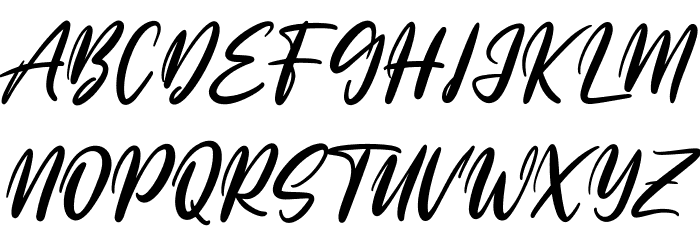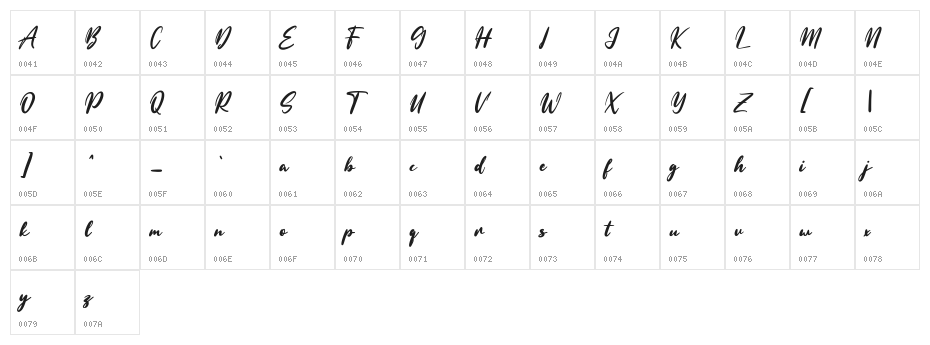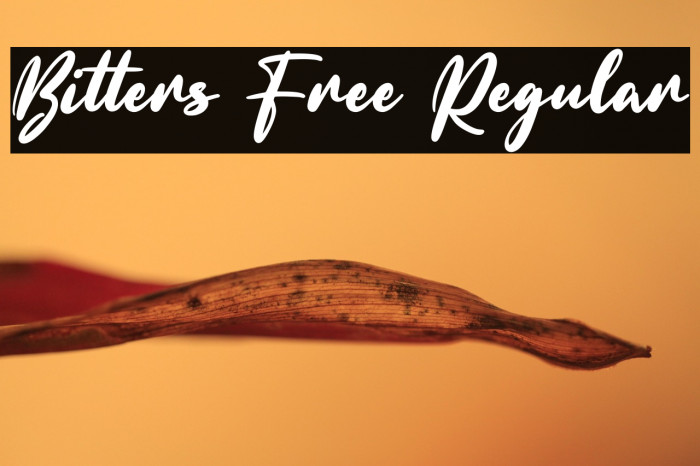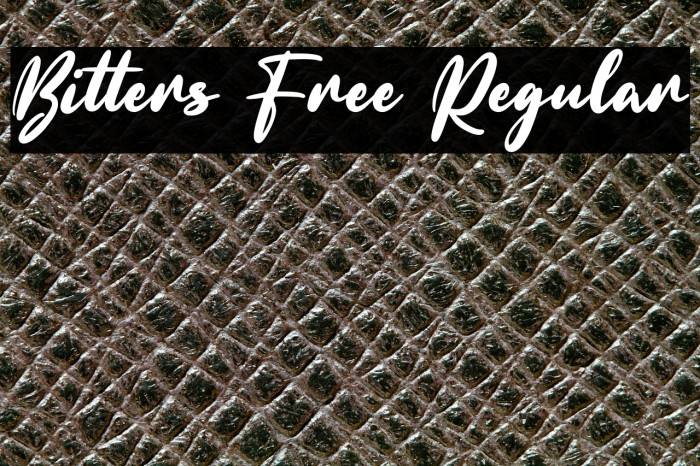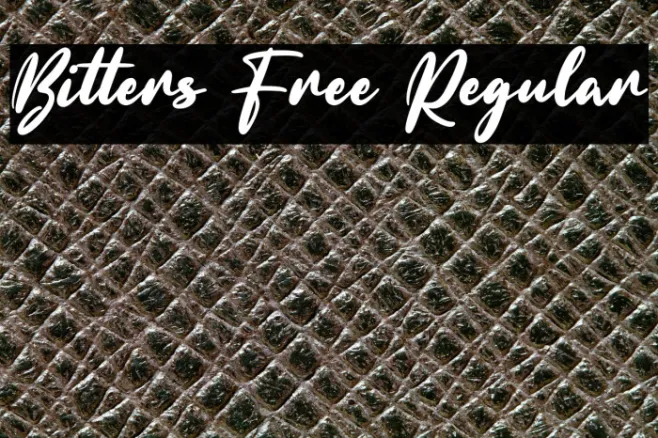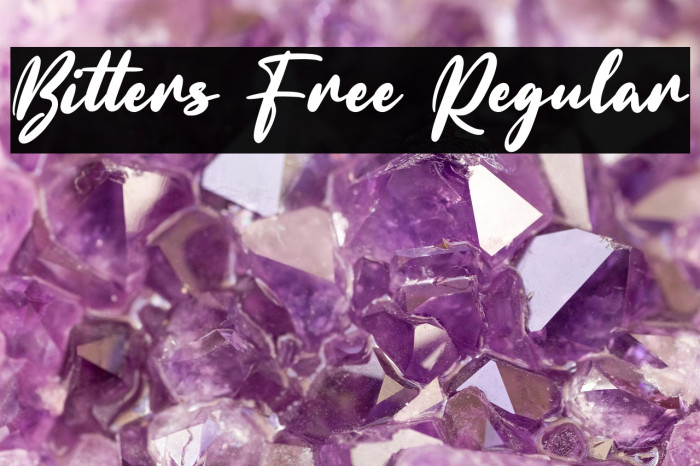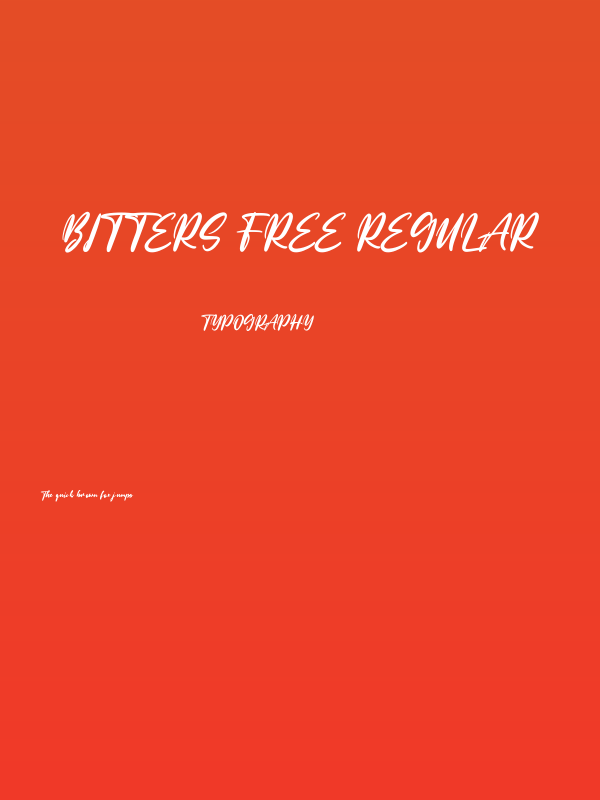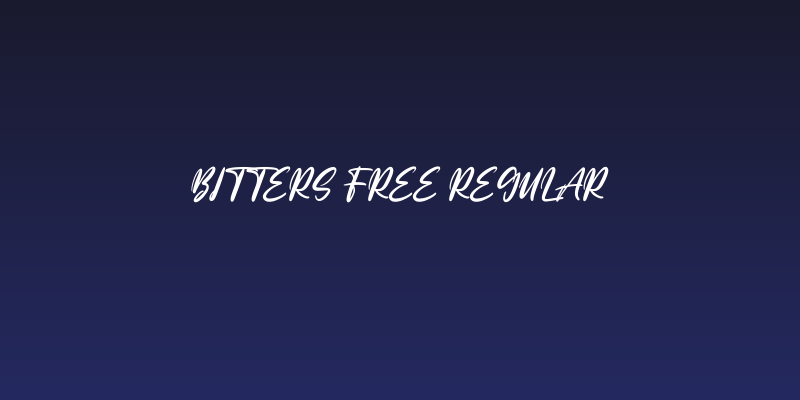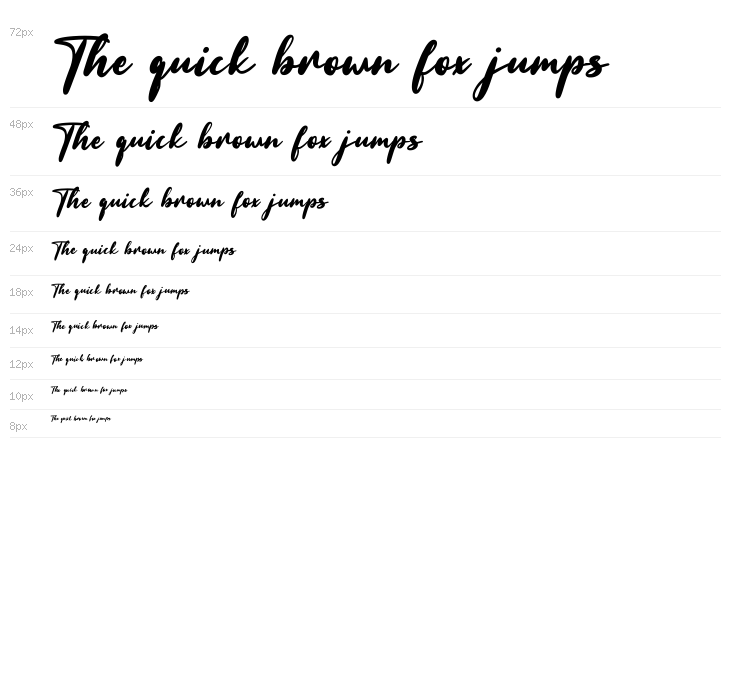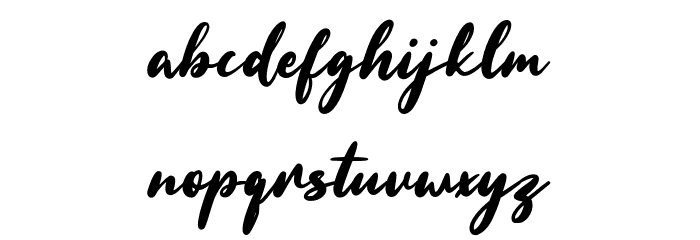
Bitters Free Regular Font
Bitters Free Regular Description
This font features a bold and expressive script style, characterized by its fluid, cursive strokes and dynamic movement. The uppercase letters are particularly striking, with sweeping curves and a sense of elegance that suggests a handwritten quality. The lowercase letters maintain this fluidity, offering a harmonious balance between readability and artistic flair. The numbers and special characters are consistent with the overall style, ensuring a cohesive look across all text elements. This font is ideal for projects that require a personal touch, such as invitations, greeting cards, or branding materials that aim to convey sophistication and creativity.
| Proposed Projects | Ideal for invitations, greeting cards, and creative branding materials. |